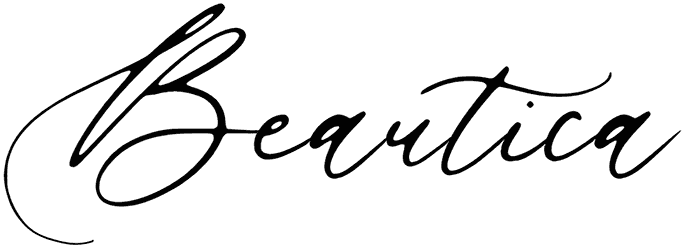
Beautica Font
The magnificent Beautica script calligraphy font perfectly captures the essence of class and sophistication. This feminine font‘s delicate lines and subtle curves make it ideal for a wide range of uses, from logo design to wedding invitations. Beautica is the best option for those who want to add a glamorous touch to their creations.